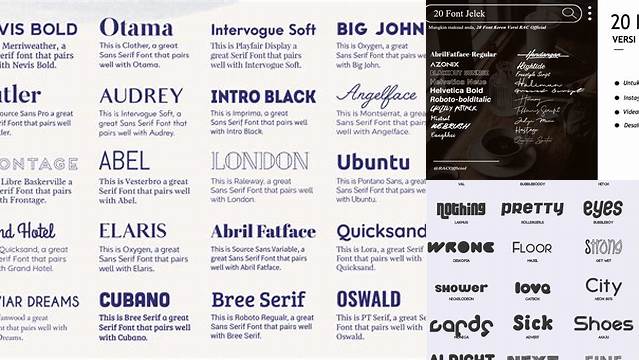
Keren Font Presets: Your Guide To Awesome Typography
Preset Fonts Keren: Your Guide to Awesome Typography
Hey guys! Are you ready to dive into the super cool world of typography? We're going to explore preset fonts keren, which are basically pre-designed font combinations that can make your designs pop! Forget the hassle of trying to find fonts that look good together. With preset fonts keren, you're getting a head start to create visually stunning projects. Whether you're a design newbie or a seasoned pro, these font combos can seriously level up your game. So, let’s get started on this journey of cool fonts!
What Exactly Are Preset Fonts Keren?
Alright, let’s break it down. The term “keren” is an Indonesian word that means “cool” or “awesome”. So, when we say preset fonts keren, we’re talking about font combinations that are designed to be visually appealing and stylish. Think of them like pre-made outfits for your text. Each preset typically includes a selection of fonts – usually a heading font, a subheading font, and a body text font – that are chosen to complement each other. The beauty of these presets is that they take the guesswork out of font pairing. You don't need to be a typography expert to create professional-looking designs. These presets do the work for you, saving you time and effort while ensuring your designs look fantastic. They're perfect for everything from website design and social media graphics to presentations and print materials.
These presets are usually created by designers who know their stuff. They understand the nuances of different fonts and how they interact with each other. They consider things like font style, weight, and even the mood or message that the fonts convey. This means when you use a preset fonts keren, you're not just choosing fonts; you're tapping into the expertise of a professional. Plus, these presets are versatile. You can often customize them to fit your specific needs. Change the colors, adjust the sizes, and tweak the spacing, and you can make these presets uniquely yours. This level of flexibility makes them ideal for any project.
In essence, preset fonts keren are a quick and easy way to inject some serious style into your designs. They’re a fantastic tool for anyone who wants to create visually stunning work without spending hours agonizing over font choices. They offer a balance of convenience and control, making them a must-have in every designer's toolkit. Whether you’re a blogger, marketer, or just someone who likes to create cool visuals, these presets are your secret weapon for making your content shine.
Benefits of Using Preset Fonts Keren
Let's talk about the good stuff: why you should absolutely consider using preset fonts keren. First off, they’re major time-savers. Seriously, who has hours to spend searching through thousands of fonts? With these presets, the work is already done for you. This means you can focus on the more creative aspects of your projects, like content creation and layout. Secondly, using these presets ensures consistency in your designs. Using a pre-selected font combination throughout your project helps create a unified and professional look. This consistency is super important for branding and making your work feel polished.
Another huge advantage is the professional aesthetic they bring. These font combinations are designed by people who know what they're doing. You get a high-quality, visually appealing result without any of the design headaches. You also get a wider range of font options. These presets often include a mix of fonts that you might not have considered on your own. This can open up new creative possibilities and help you discover fresh looks for your projects. Experimentation is key, and these presets encourage you to try out different styles without committing a lot of time. Plus, using these presets is easy to learn. You don’t need to be a design guru to get amazing results. They’re perfect for beginners and pros alike. So, by using preset fonts keren, you're not just picking fonts; you're creating a visually stunning piece.
Finally, preset fonts keren can boost your productivity and creativity. By saving you time and offering inspiration, they help you get your work done faster and more efficiently. When you’re not bogged down in font choices, you can dedicate your energy to developing great content and designs. They also encourage experimentation, which often leads to exciting new creative avenues. In short, these presets provide the perfect blend of convenience, style, and creative freedom, empowering you to create amazing designs with ease. It’s a win-win for everyone involved.
How to Choose the Right Preset Fonts Keren
Choosing the right preset fonts keren can seem like a big task, but it's not as hard as you might think. Here's how to do it like a pro. First, know your project. What are you trying to create? A website? A flyer? A presentation? Different projects have different needs. The font combination that works for a fun social media post might not be ideal for a serious business proposal. Think about your target audience. Who are you trying to reach? The fonts you choose should resonate with them. Are you aiming for a playful, youthful vibe, or a more formal, professional tone? Understanding your audience will guide you to the right style.
Next, consider the message. What do you want to communicate? Your font choices should reflect the overall tone and feeling of your message. A bold, impactful headline might be great for grabbing attention, but a more readable font is essential for body text. Pay attention to the font styles within the presets. Do you prefer a classic, modern, or vintage look? Are you into serif fonts, sans-serif fonts, or a mix of both? Different styles evoke different moods, so choose fonts that align with your overall design goals. And, never underestimate the importance of readability. Make sure your chosen fonts are easy to read, both on screen and in print. Avoid overly decorative or stylized fonts that might be difficult to decipher.
Another key factor is contrast and balance. Choose fonts that complement each other, with good contrast between the headings and body text. The aim is to create a visual hierarchy, making it easy for your audience to scan and digest the information. Don't be afraid to experiment and see what works best for your project. Test out different presets with your content to find the perfect fit. Some presets might look great in theory but not work well in practice. Lastly, remember that the best preset fonts keren are the ones that match your vision, enhance readability, and reflect your brand's personality. It's all about finding that perfect balance.
So, there you have it, guys! Everything you need to know about preset fonts keren. From saving time and creating stunning designs, to finding the right combinations, these are a must-have for anyone wanting to take their designs to the next level. Now go out there and start creating some awesome work!